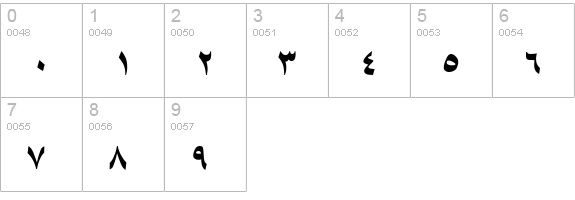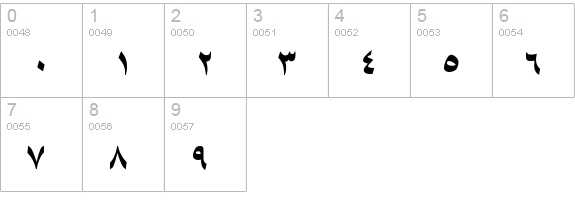
B Shiraz is a stunning and elegant font that exudes sophistication and style. With its unique and intricate design, this font is perfect for adding a touch of luxury to any project. The flowing lines and intricate details of B Shiraz make it a standout choice for branding, invitations, and more. The best part? B Shiraz is available for free download at FontsMarket.com. This means you can easily access this beautiful font and use it in your designs without any cost. Don't miss out on the opportunity to enhance your projects with the timeless beauty of B Shiraz. Download it today and elevate your designs to the next level.